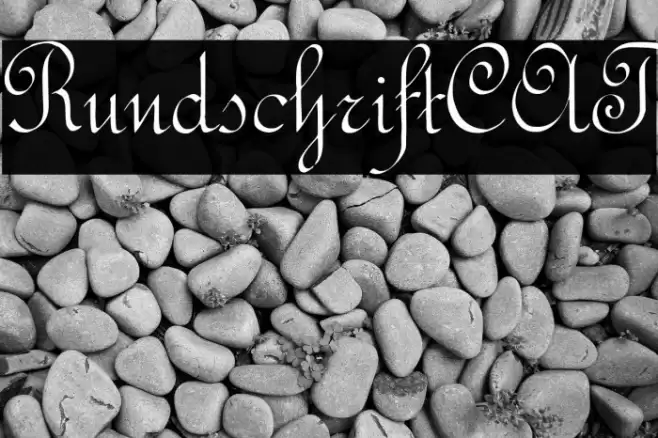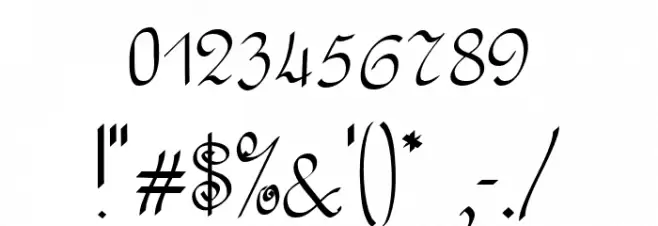
RundschriftCAT Font
RundschriftCAT Description
This font features a decorative and elegant script style with a flowing, cursive appearance. The uppercase letters exhibit intricate loops and swirls, creating a sense of sophistication and artistry. The lowercase letters maintain a consistent style, with elongated ascenders and descenders that add to the font's graceful aesthetic. The numerals are designed to complement the letters, maintaining the same elegant curves and strokes. Special characters are included, each crafted with the same attention to detail, making this font versatile for various uses. The overall design is reminiscent of calligraphy, with a modern twist that makes it suitable for contemporary applications.
An elegant, decorative script font with flowing, cursive letters and intricate details from Uncategorized fonts.